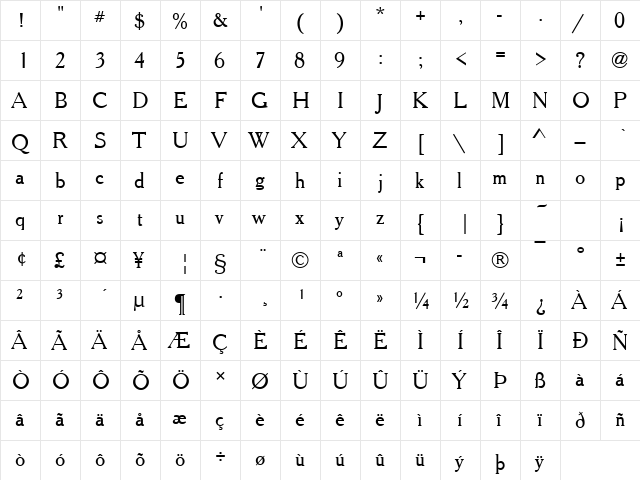
CheltenhamOldStyNo2 Regular
Design Context for CheltenhamOldStyNo2 Typeface
CheltenhamOldStyNo2 offers clean, dependable letterforms without strong stylistic allegiance, making it a practical choice for designers who need flexibility.
Pro Tip: Use CheltenhamOldStyNo2 in both headline and body roles to test its range before committing to a single application.